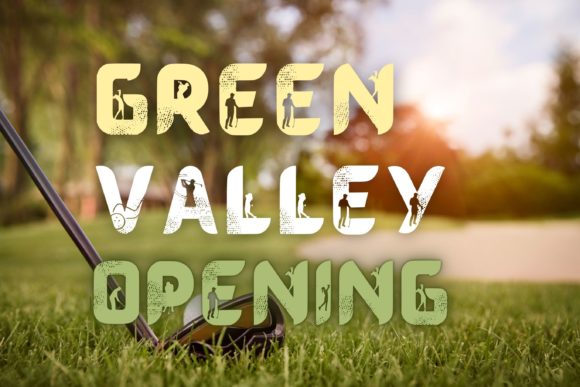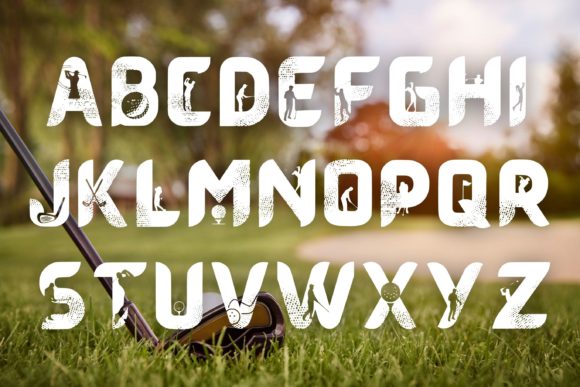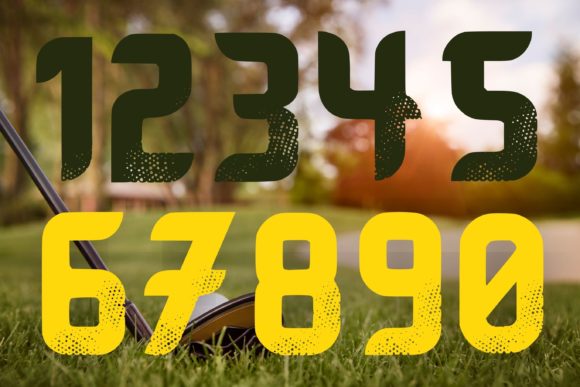
Discover the Best Pro Golf Font for Your Sports-Themed Projects
Are you a designer, crafty enthusiast, or sports fan looking for the perfect font to elevate your golf-themed projects? Look no further! In this article, we’ll introduce you to the Best Pro Golf Font, a cool and sporty decorative font that’s sure to take your designs to the next level.
What is Best Pro Golf Font?
Best Pro Golf Font is a stylish and modern font designed specifically for golf enthusiasts and designers who want to add a touch of sports flair to their projects. This decorative font is perfect for creating eye-catching titles, headings, and text elements that scream golfing excitement.
Key Features of Best Pro Golf Font
- Cool and Sporty Design: Best Pro Golf Font boasts a sleek and dynamic design that’s reminiscent of golf courses and sports equipment.
- Highly Versatile: This font is perfect for a wide range of projects, from golf-themed posters and flyers to sports apparel and accessories.
- Easily Customizable: With Best Pro Golf Font, you can experiment with various font sizes, colors, and styles to match your project’s unique needs.
- Limitless Options: Whether you’re designing for print or digital platforms, Best Pro Golf Font offers endless possibilities for creative expression.
Why Choose Best Pro Golf Font?
So, what sets Best Pro Golf Font apart from other fonts in the market? Here are just a few reasons why designers and crafters love this font:
- Instant Recognition: Best Pro Golf Font instantly conveys a sense of golfing excitement and energy, making it perfect for sports-themed projects.
- Professional Look and Feel: This font exudes a professional and polished look that’s sure to impress your audience.
- Easy to Read: Despite its decorative nature, Best Pro Golf Font remains highly legible, even at smaller font sizes.
Use Cases for Best Pro Golf Font
The possibilities are endless when it comes to using Best Pro Golf Font. Here are some inspiring use cases to get you started:
- Golf Tournament Posters: Create eye-catching posters and flyers for golf tournaments, complete with bold headings and exciting typography.
- Sports Apparel and Accessories: Design stylish golf shirts, hats, and water bottles with Best Pro Golf Font.
- Golf Course Branding: Use this font to create a cohesive brand identity for golf courses, including signage, brochures, and website headers.
Tips for Using Best Pro Golf Font
To get the most out of Best Pro Golf Font, keep the following tips in mind:
- Experiment with Font Sizes: Play around with different font sizes to create visual hierarchy and emphasis.
- Pair with Complementary Fonts: Combine Best Pro Golf Font with clean, sans-serif fonts for a harmonious and balanced look.
- Use Colors Strategically: Select colors that reflect the golfing theme, such as shades of green, blue, and yellow.
| Font Name | Best Pro Golf Font |
| Author | Cnxsvg |